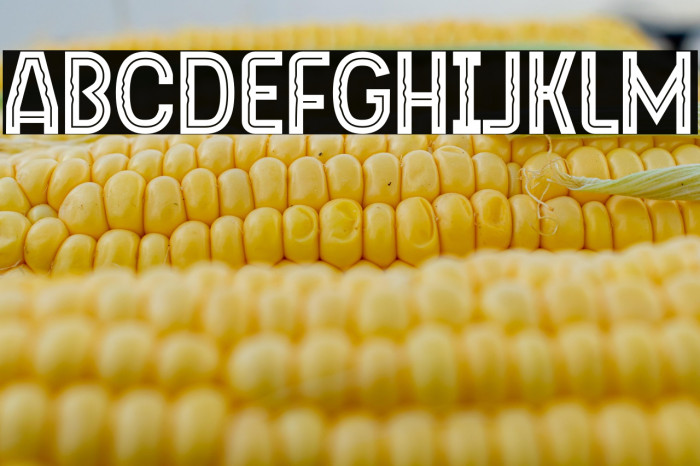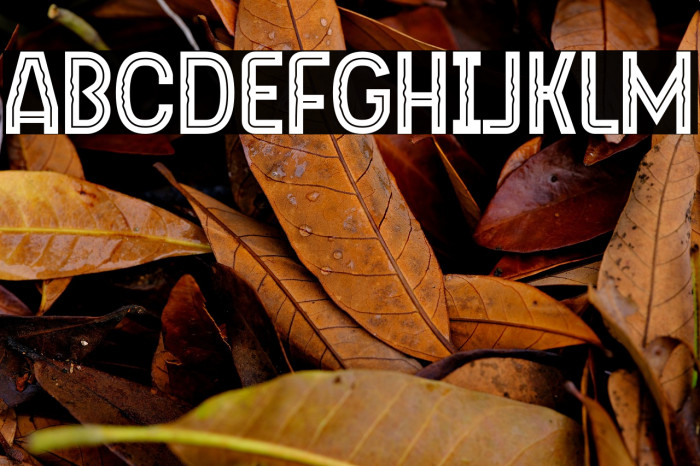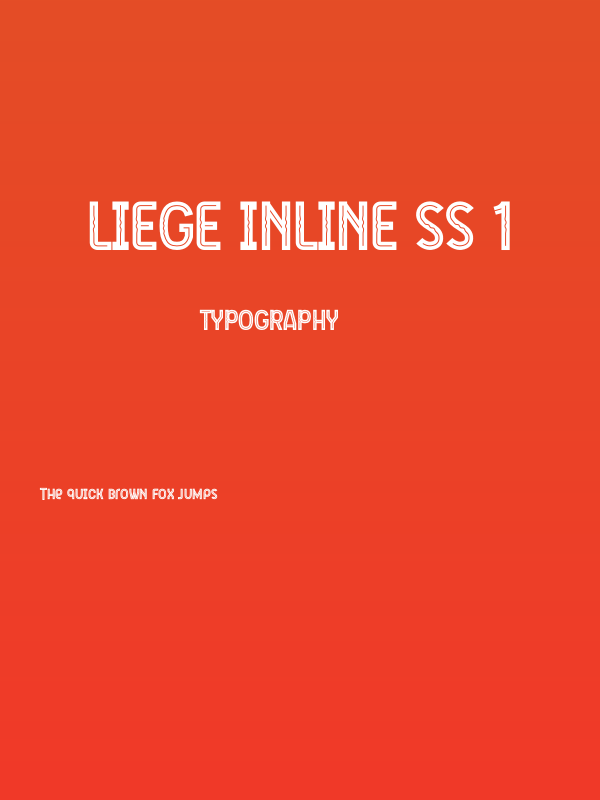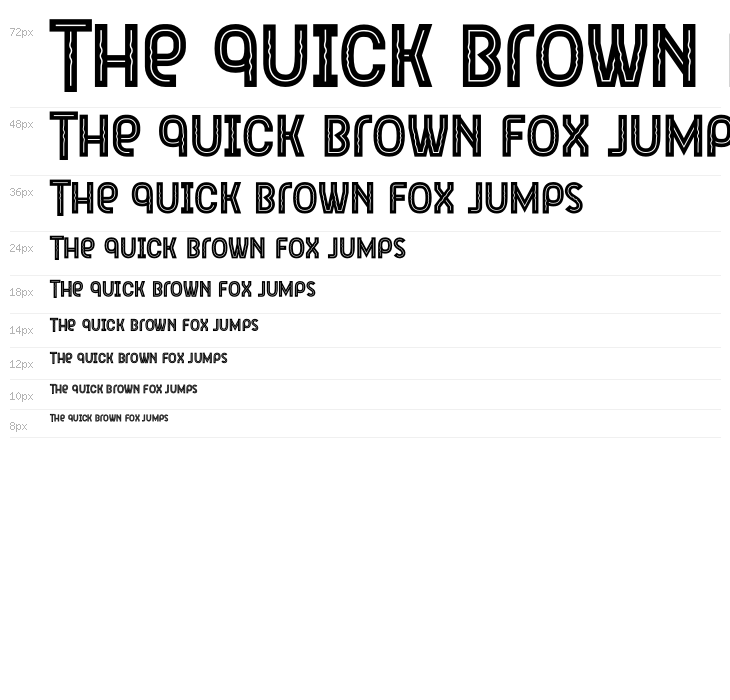
Liege Inline SS 1 Font
Liege Inline SS 1 Description
This font features a bold and decorative style with an inline design that adds depth and dimension to each character. The uppercase and lowercase letters maintain a consistent structure, with clean lines and a modern aesthetic. The numbers and special characters are equally stylized, making them suitable for eye-catching designs. The font's unique inline detail gives it a distinctive look, perfect for projects that require a touch of creativity and flair.
| Proposed Projects | Ideal for posters, branding, headlines, and any design requiring a bold statement. |